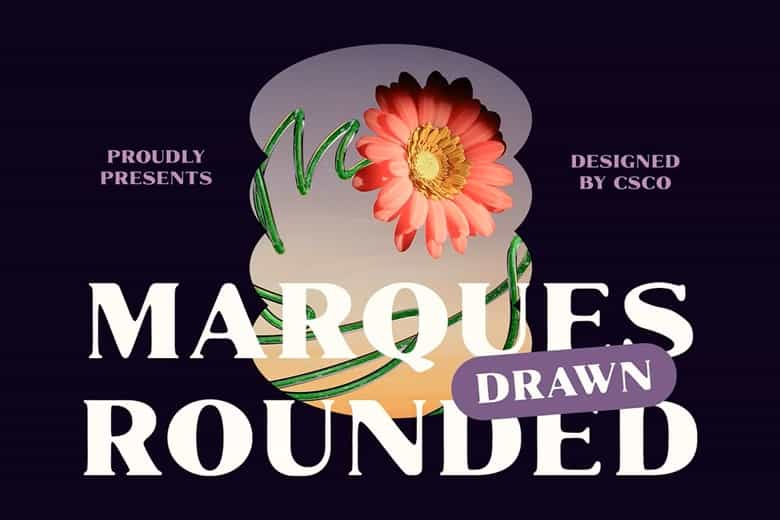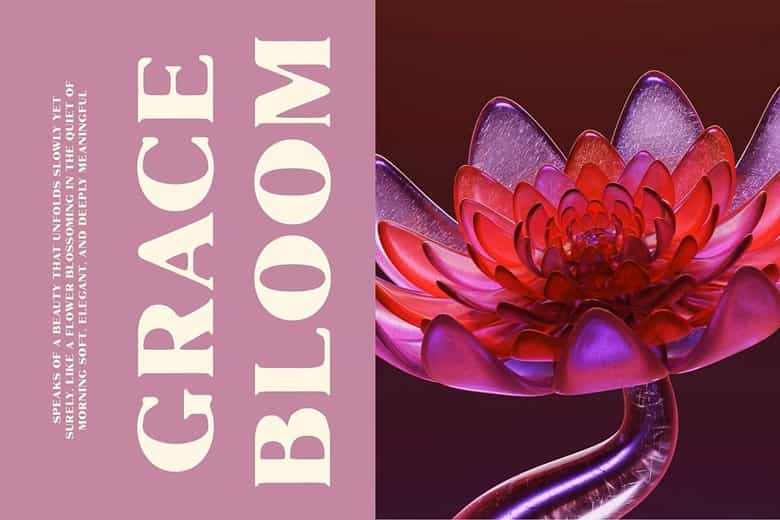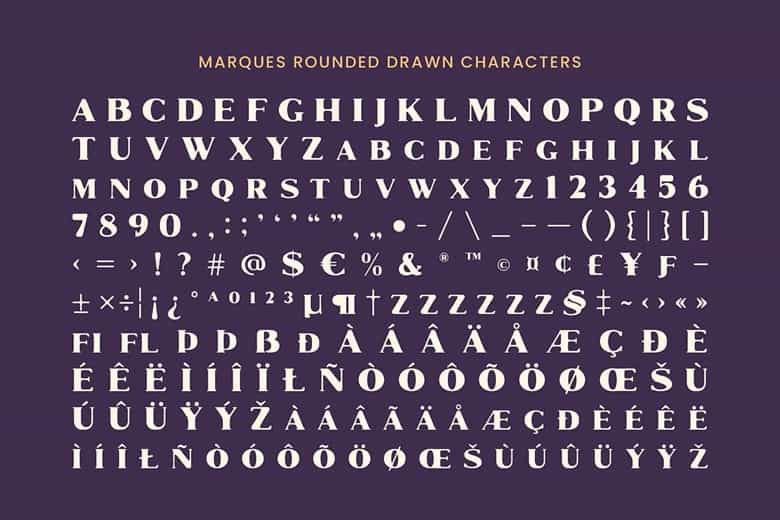
Marques Rounded Drawn is an elegant classic serif typeface that blends the bold, rounded letterform with timeless elegance. The thought-through curves, neat proportions, create for this font an aura of a sophisticated, yet accessible font allowing to widely use it in creative purposes.